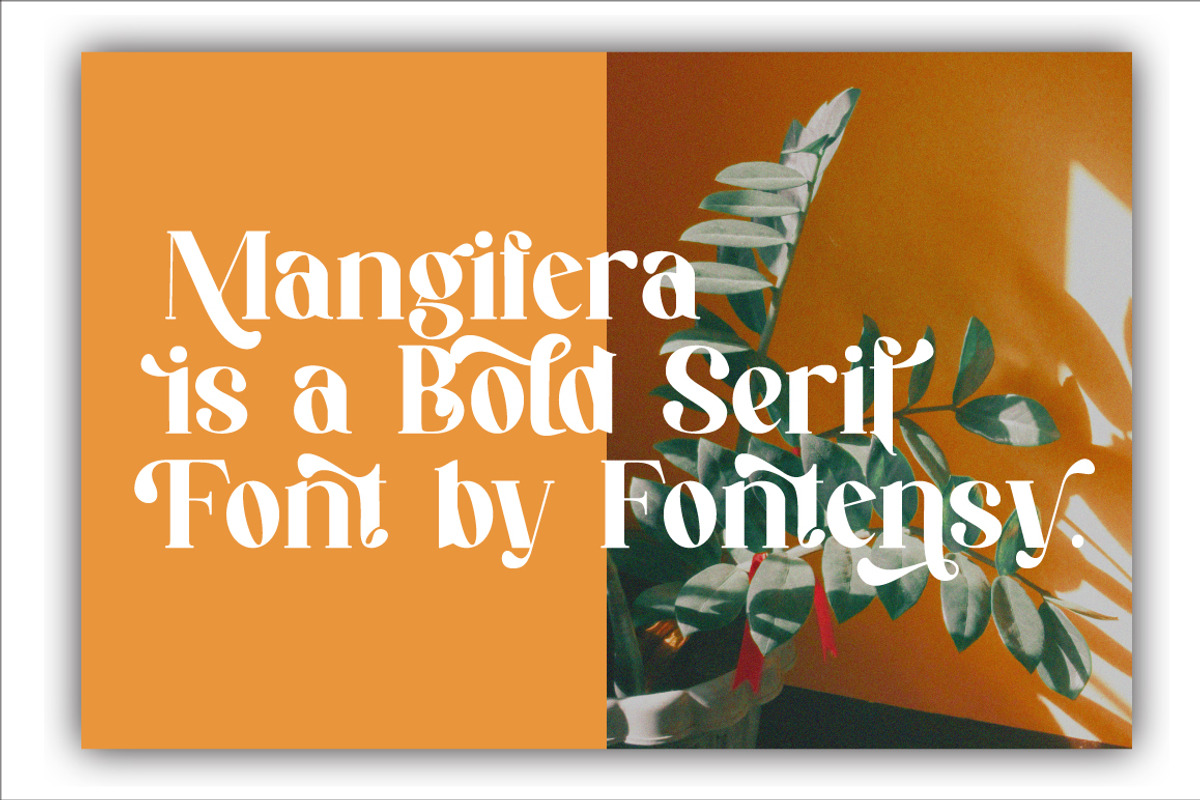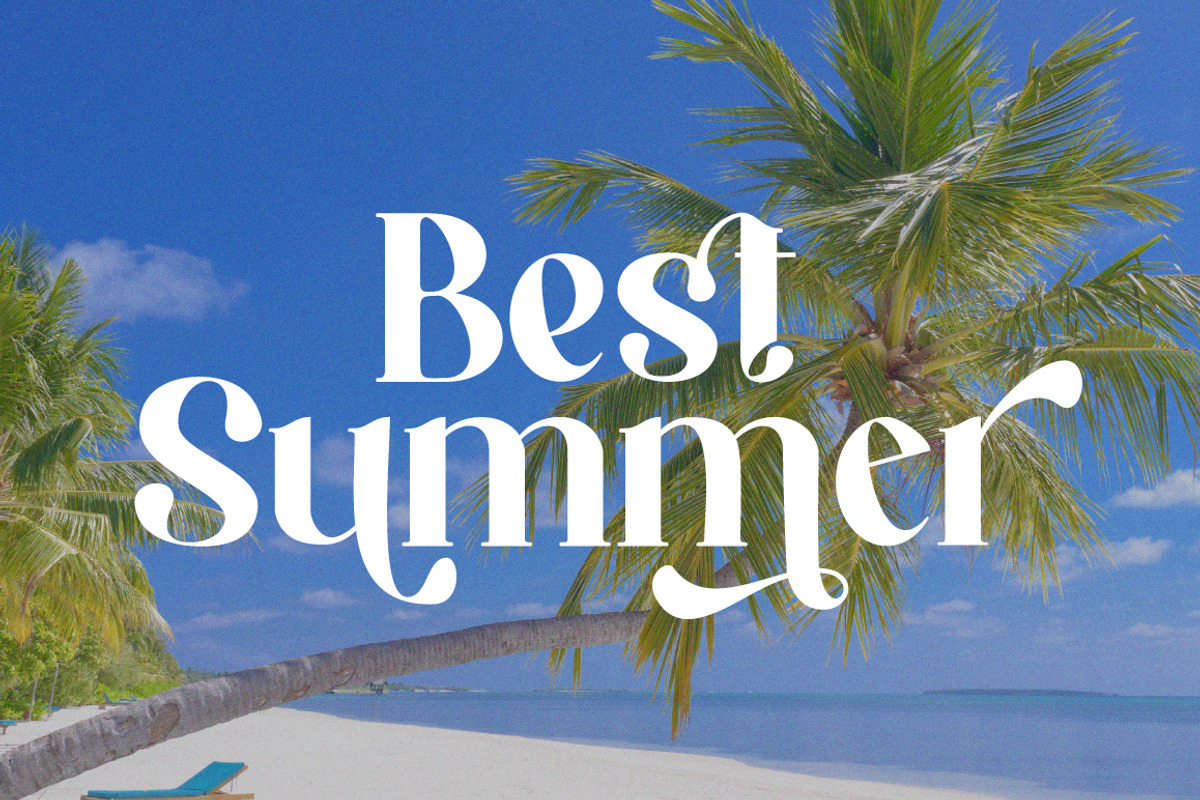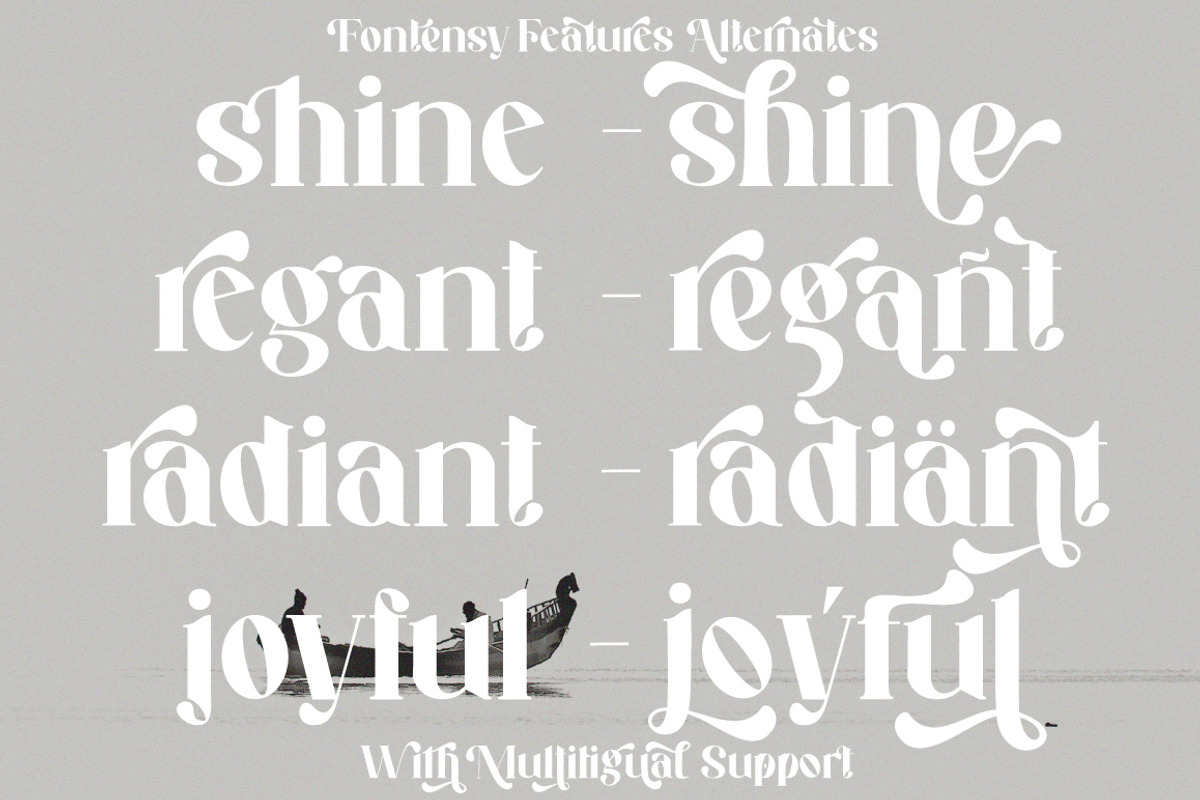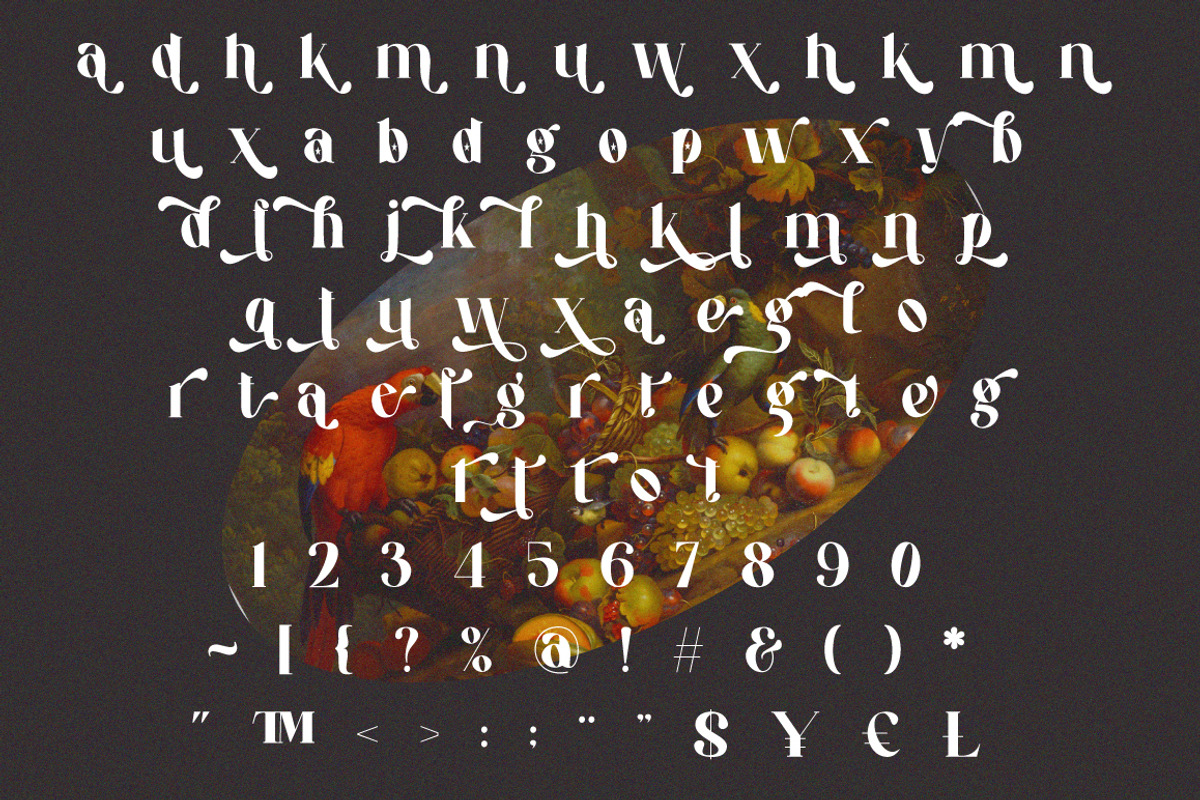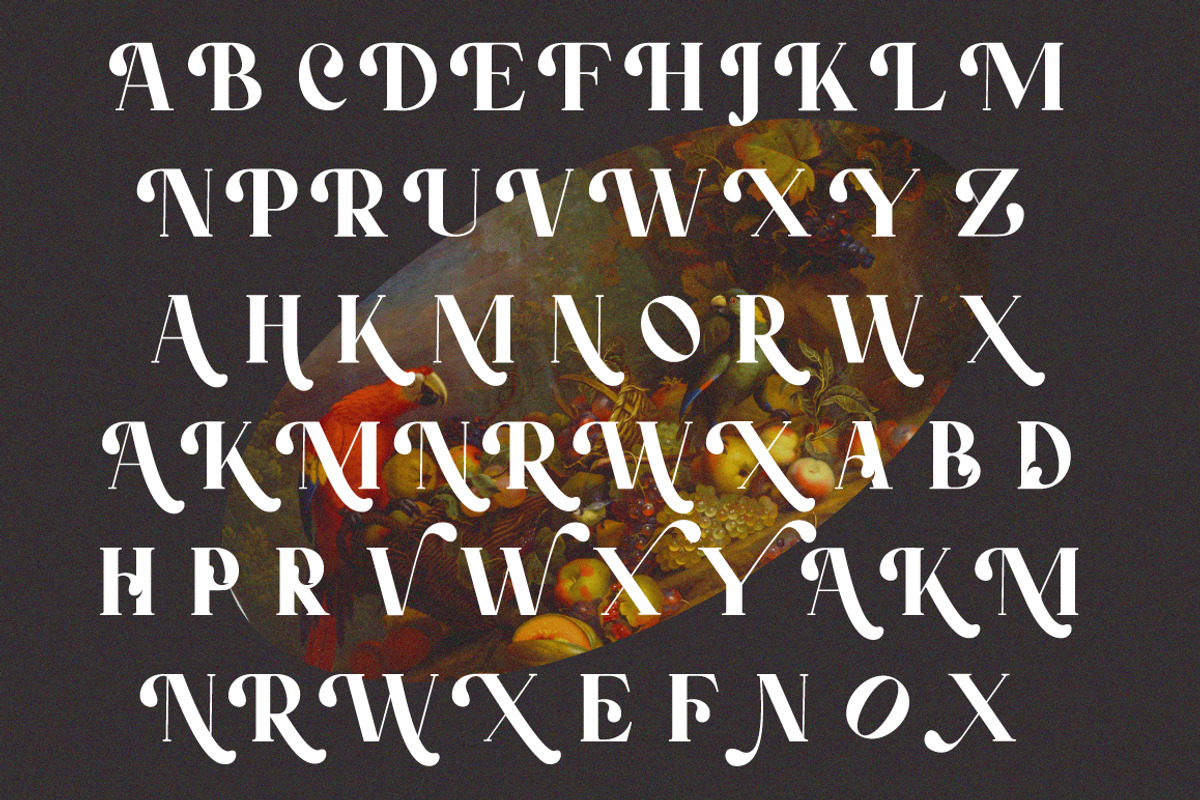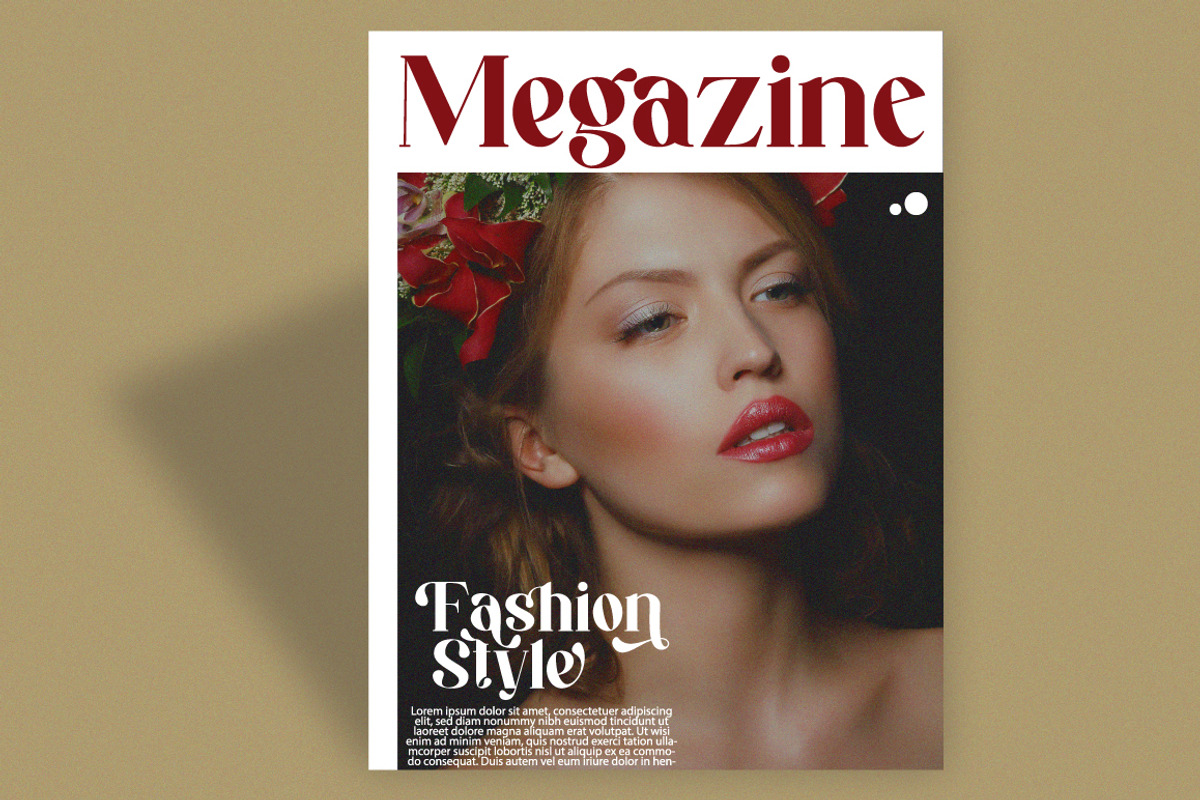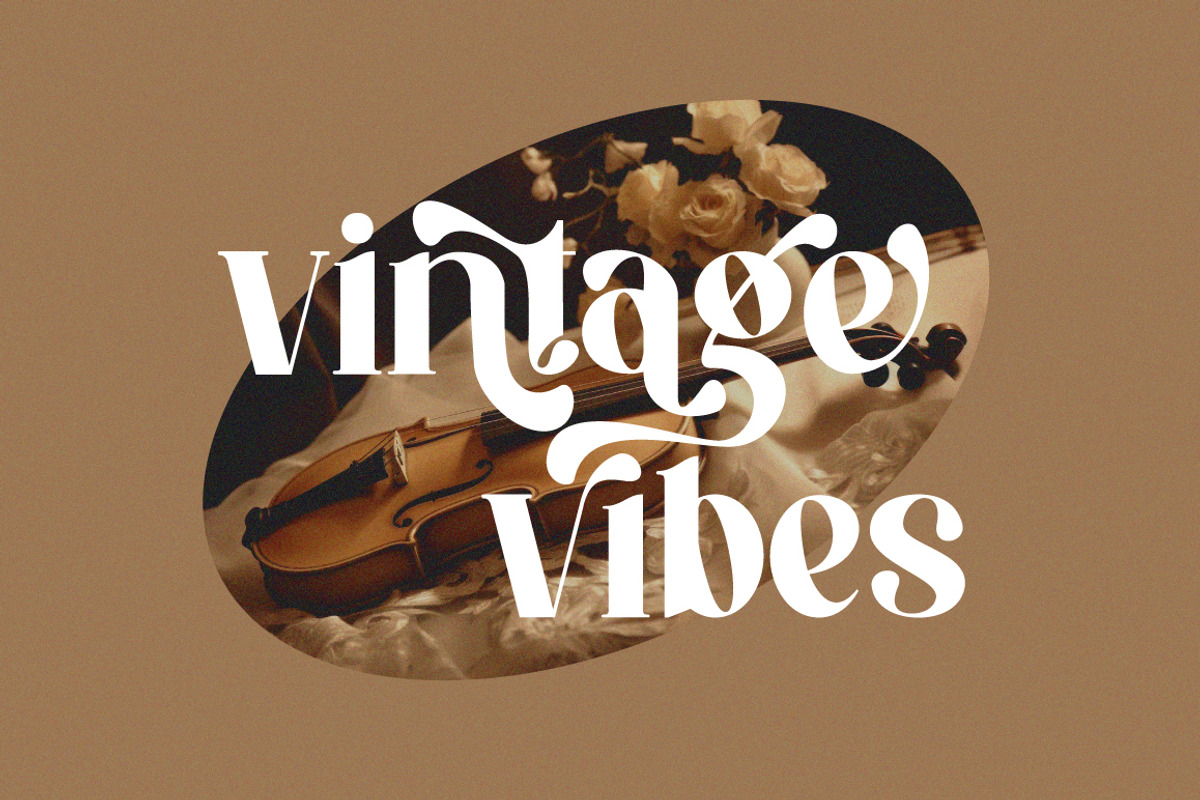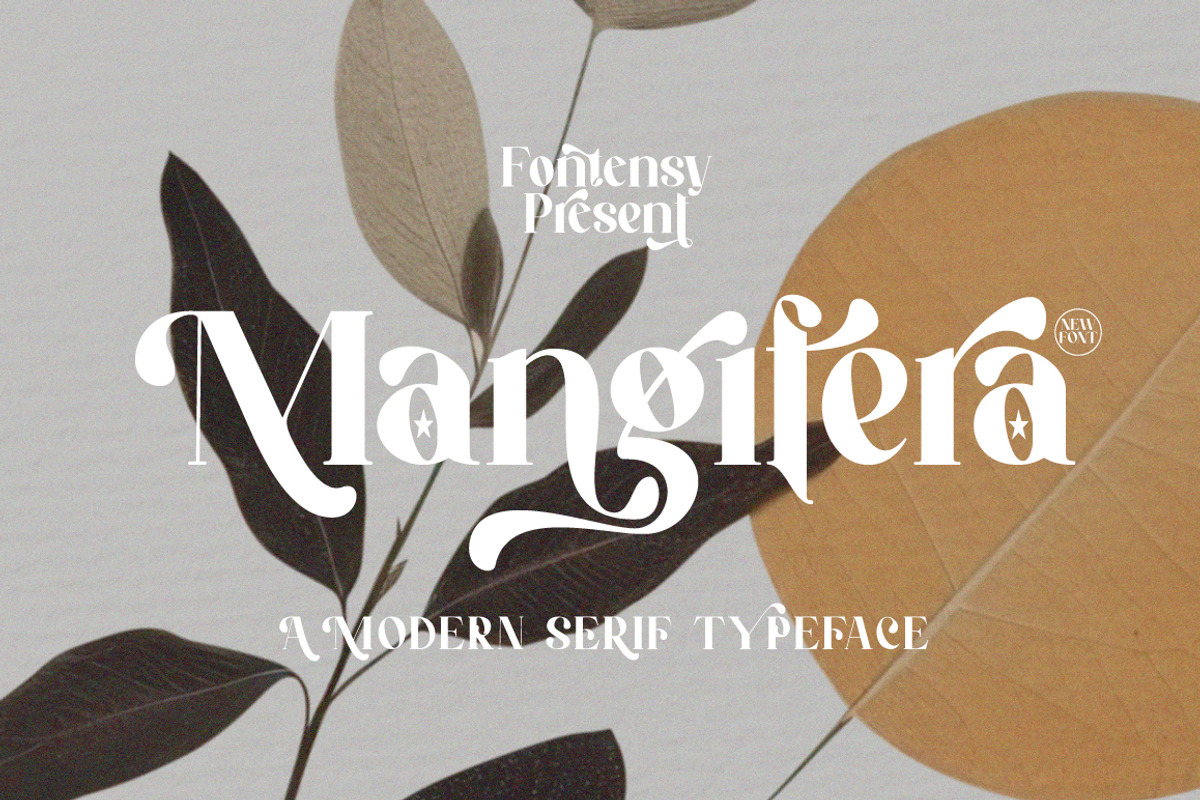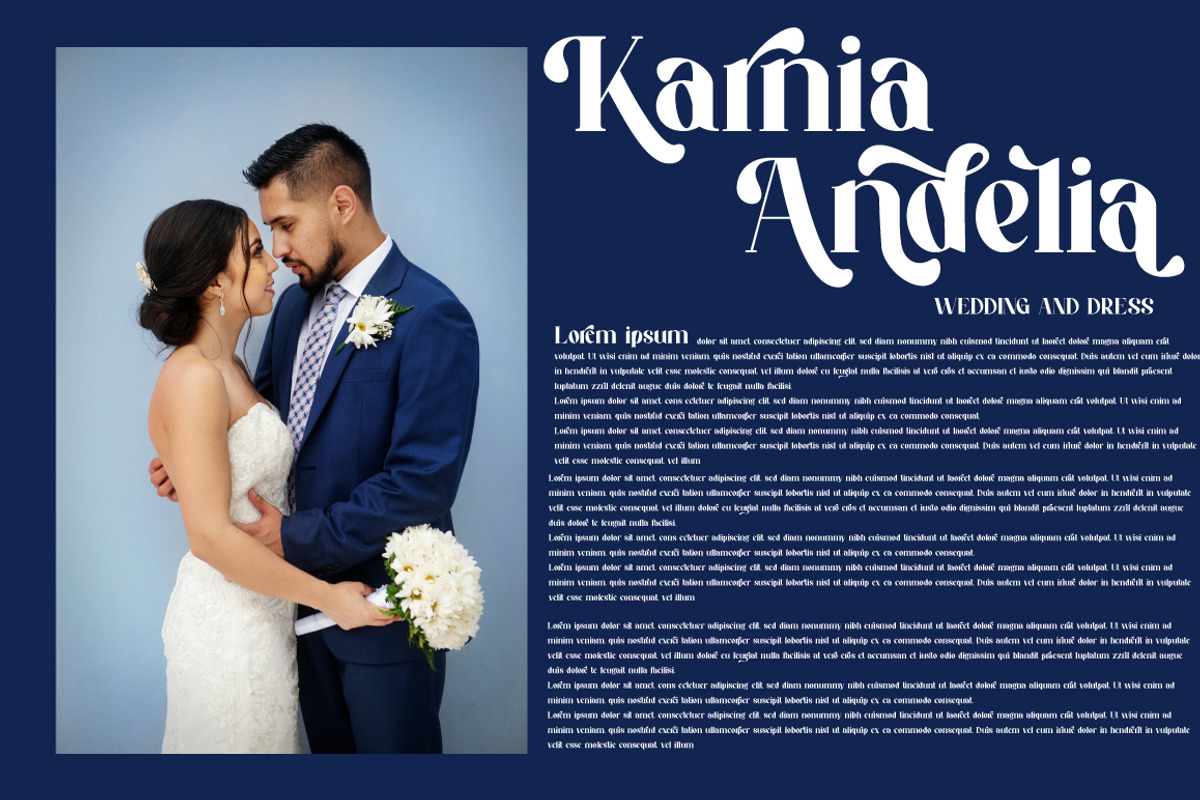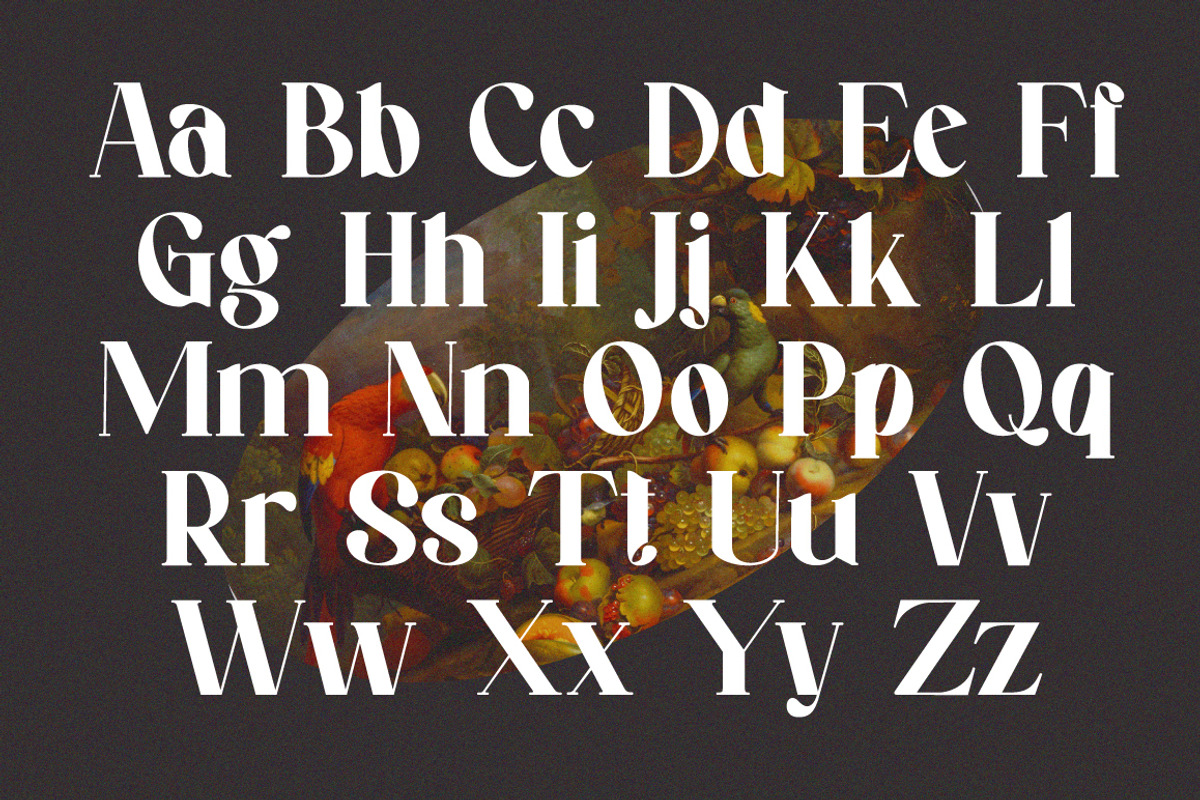
Mangifera Serif Eegant
I'm present to you, new retro serif called Mangifera!
Mangifera is a stylish font that is both retro and bold font. It's thick curves give a 70s groovy vibe with the serifs bringing it slightly back to traditional
Mangifera fits perfectly into those nostalgic moodboards and vintage logos. It come with a unique lower and uppercase plus numbers, punctuation & multilingual letters.